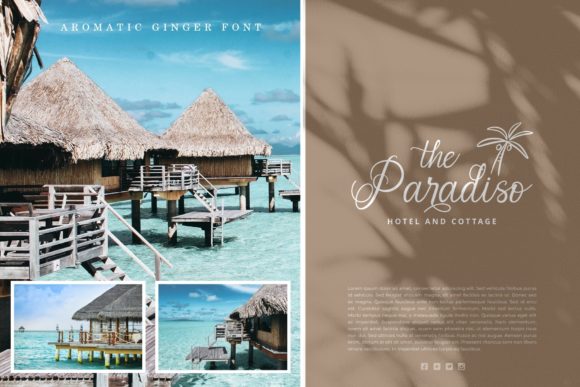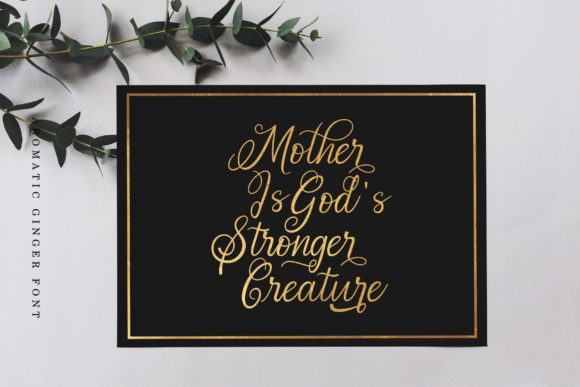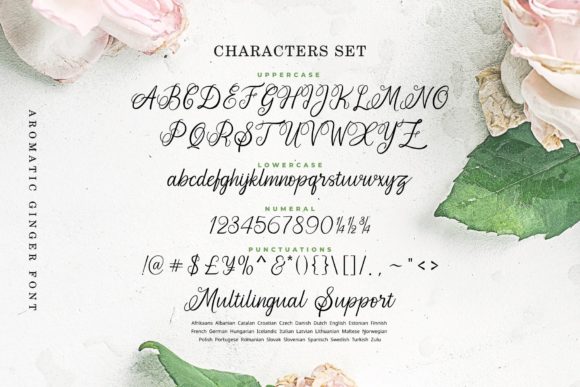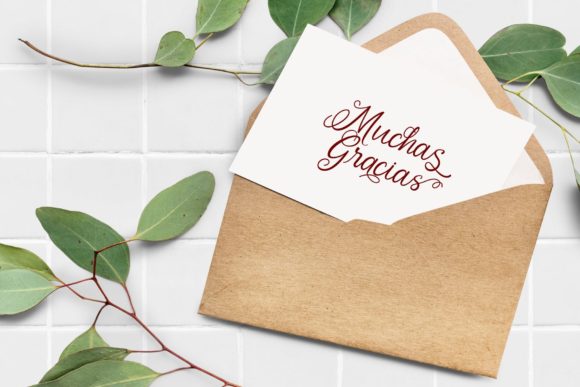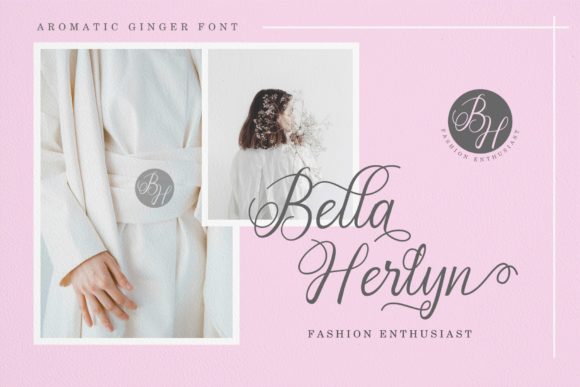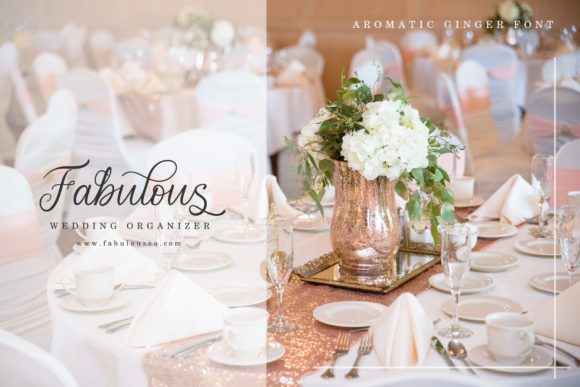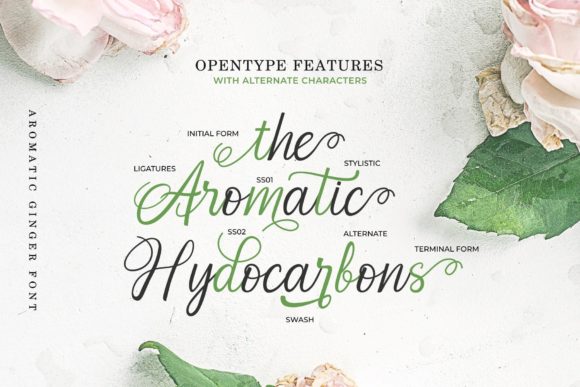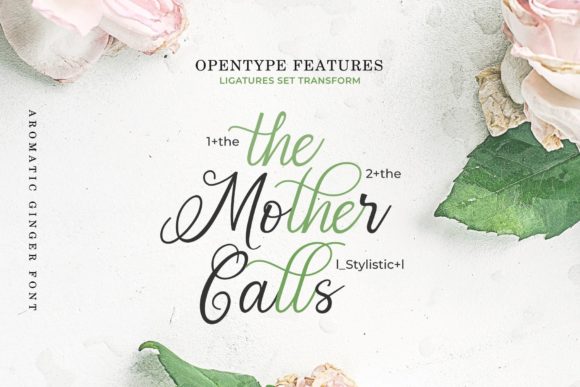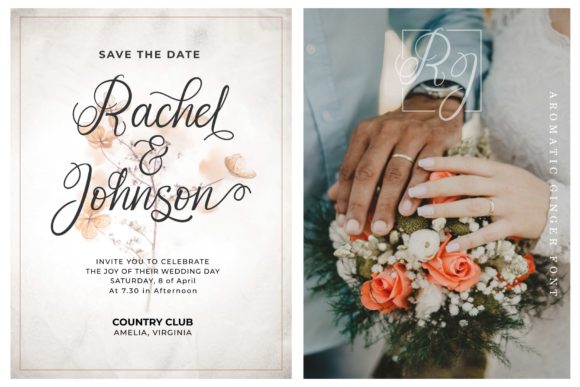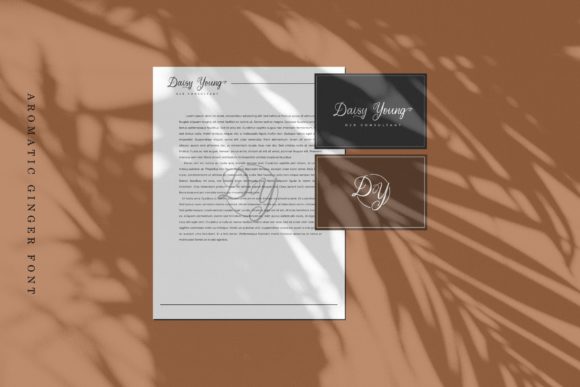
Aromatic Ginger Font
Aromatic Ginger is an elegant calligraphy font that is inspired by dip pen calligraphy. It will put an authentic and light twist on any design project.